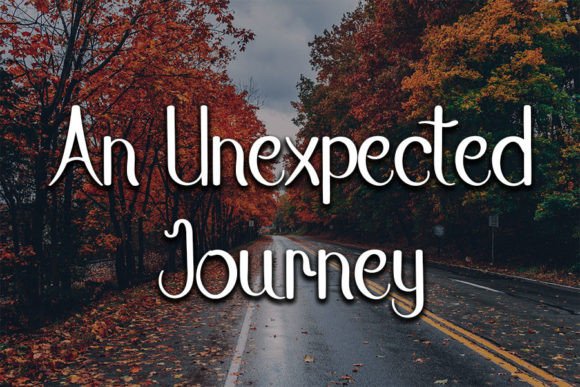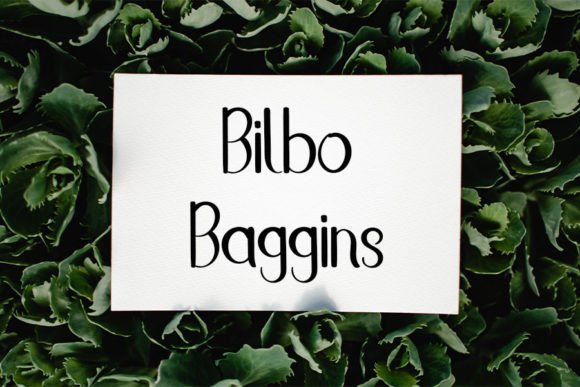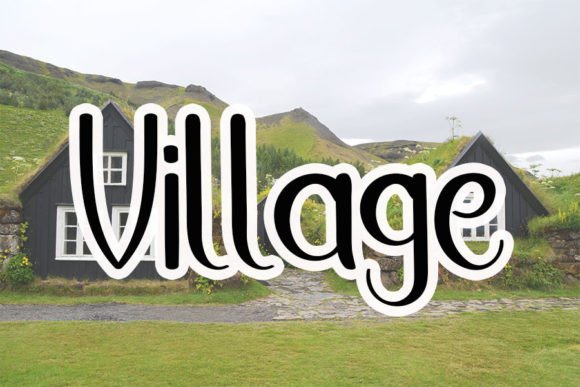
Introduction to Hobbit Font
Hobbit is a colorful handwritten font carefully created with a touch of elegance.
Clean and a little bit quirky, this font is the perfect fit for all of your logos, branding, social media, and crafty DIY projects .